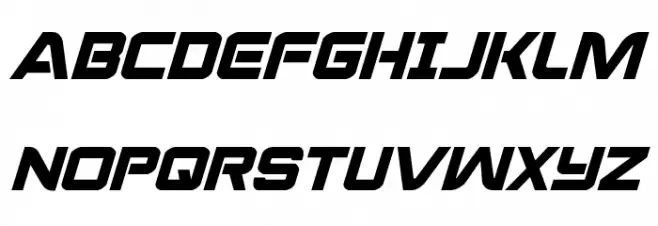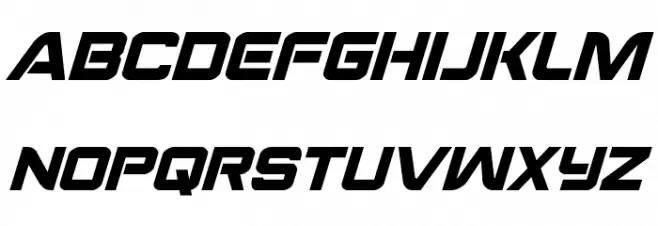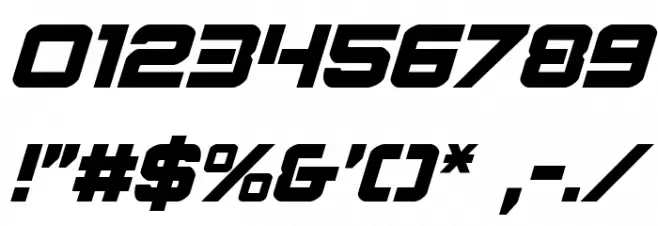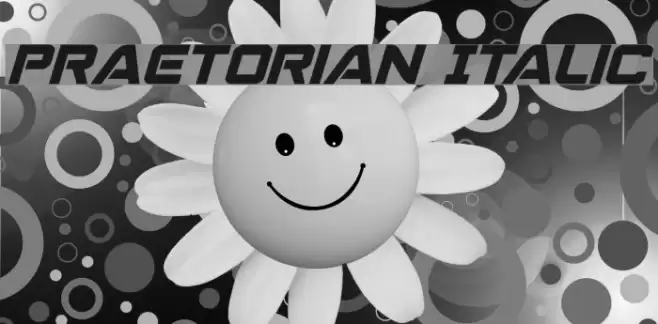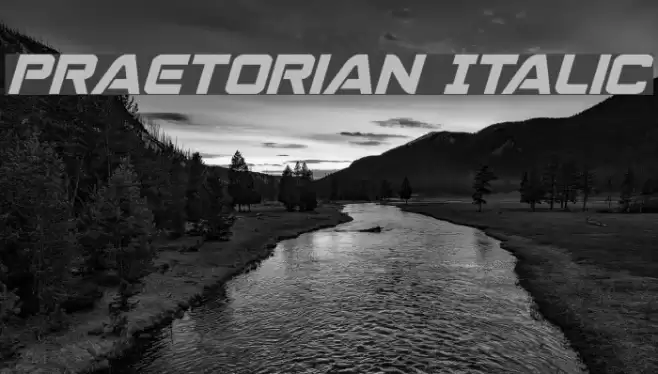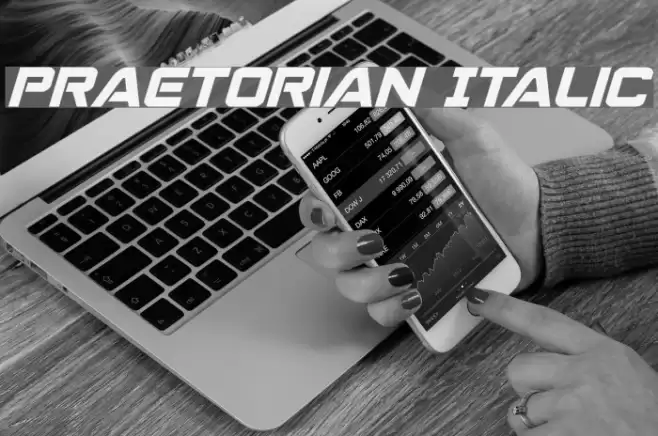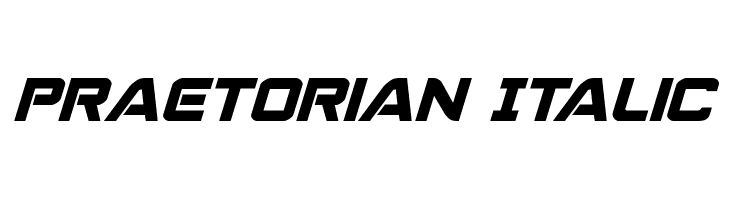
Praetorian Italic
This font features a bold and dynamic italic style with a futuristic and sporty appearance. The characters are slanted, giving a sense of motion and speed, which is enhanced by the sharp, angular cuts and edges. The uppercase and lowercase letters maintain a consistent design, with a uniform stroke width that adds to the boldness. The numerals and special characters follow the same aesthetic, ensuring a cohesive look across all text elements. This font is ideal for projects that require a modern and energetic feel.
A bold, italic font with a futuristic and dynamic style.
- Proposed Projects: Ideal for sports branding, automotive designs, tech-related projects, and dynamic advertising campaigns.
- Use Case: Headlines, Logos, Branding